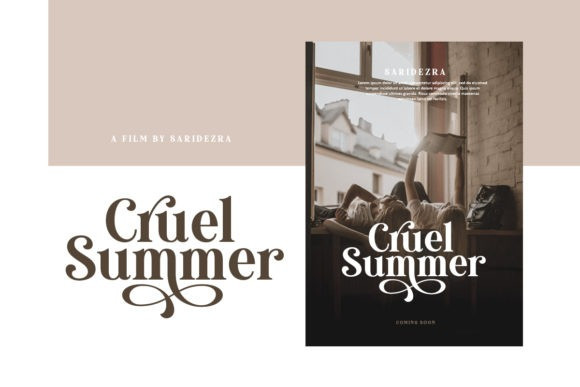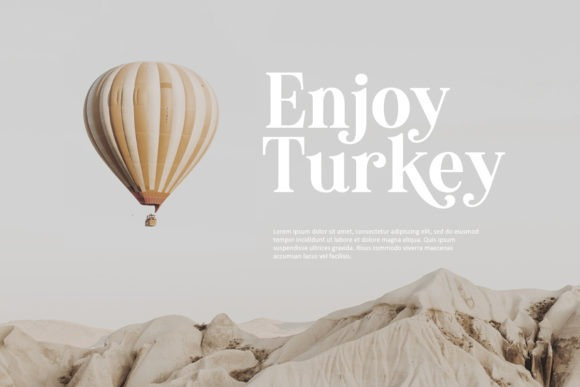
Lovérica Serif Font
Lovérica is a classic and modern serif font. It has up to 7 different styles for every character, that will make your presentation or logo even more stunning and stand out!